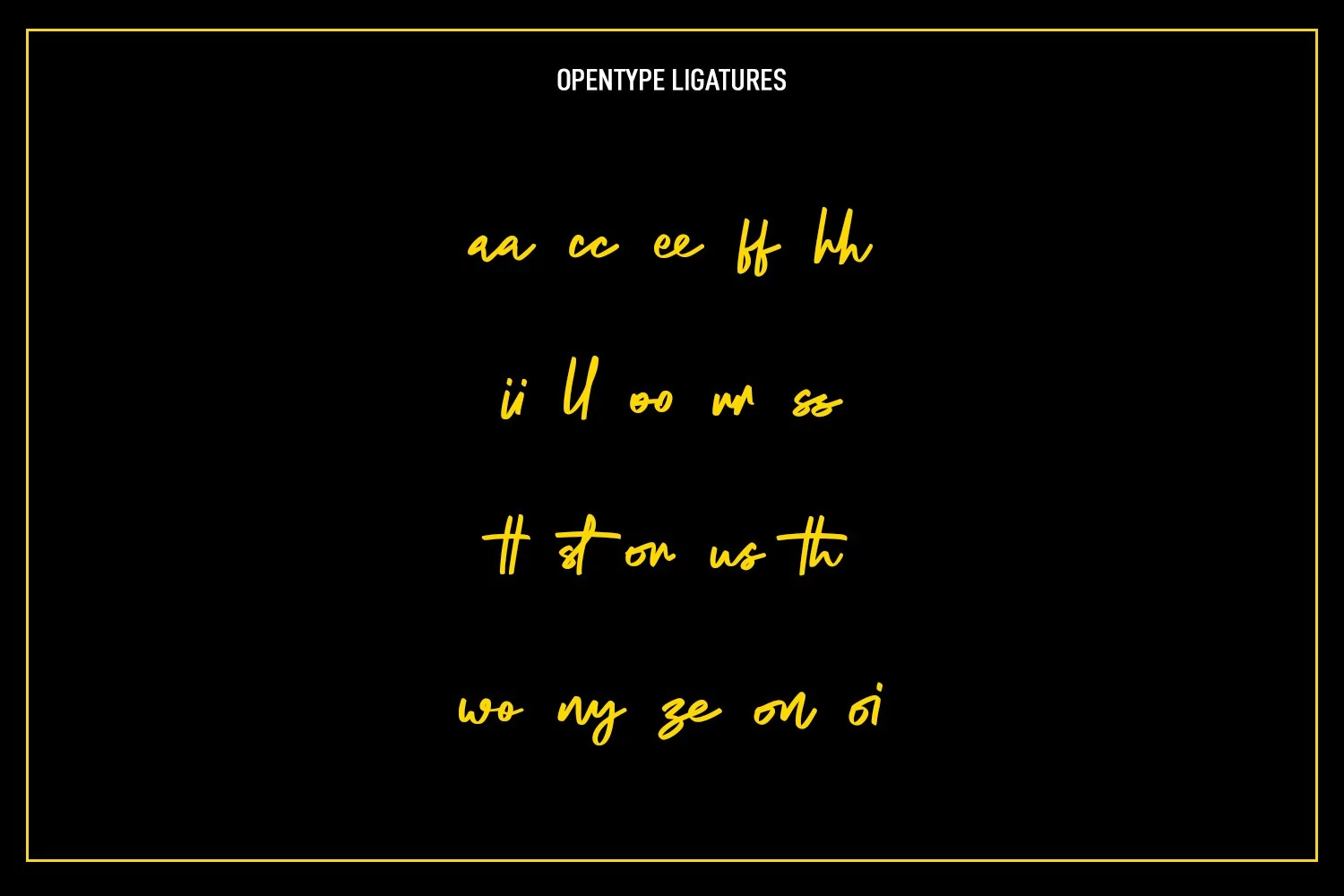
The Impostor is a regular casual script font. With sharp felt-tip stroke, slant and fun character with a bit of ligatures. To give you an extra creative work. The Impostor font support multilingual more than 100+ language. This font is good for logo design, Social media, Movie Titles, Books Titles, a short text even a long text letter and good for your secondary text font with sans or serif. Make a stunning work with The Impostor font.